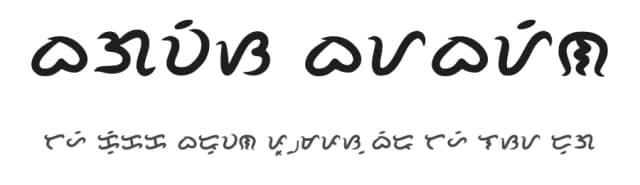
About Mahiwaga Baybayin Font
Mahiwaga Baybayin is a dingbat font designed by EdeL. It includes 68 glyphs, a regular weight, TTF (TrueType) format, and 105 languages. Mahiwaga Baybayin is free to download; check the license details on this page before commercial use. Dingbat fonts like Mahiwaga Baybayin work best for icons, ornaments, bullet points, and decorative accents.
Mahiwaga Baybayin Font is a versatile dingbats font that works for both headings and body text. Pair it with a contrasting sans-serif or serif font to add visual interest and a clear distinction between titles and body copy.
Mahiwaga Baybayin Font is a dingbats typeface by EdeL, ideal for logos, invitations, branding, and creative projects.